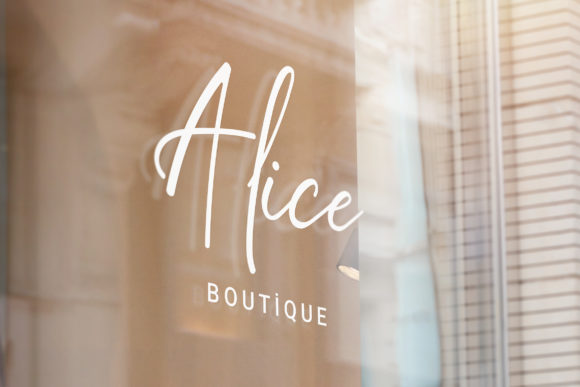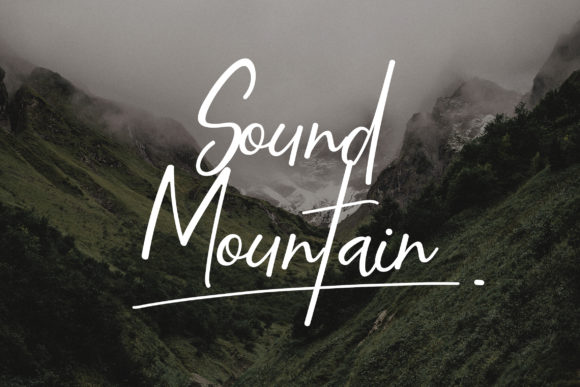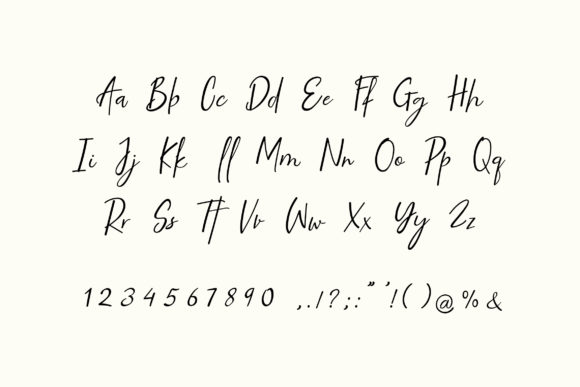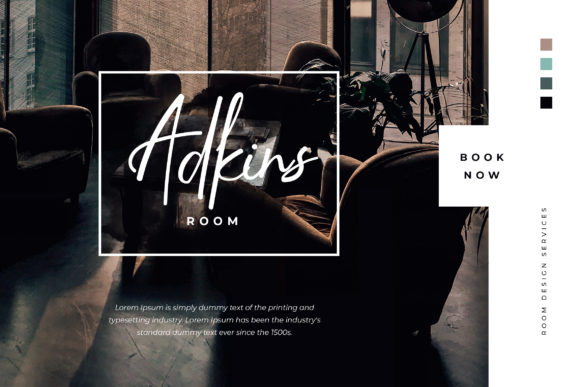
Introduction to Perfect Paradise Font
Perfect Paradise is a dazzling and refined script font.
It has a clean, thin and smooth vibe and it will be a hit for any design that you want to add it to .
Perfect Paradise Font offers exceptional quality and versatility, making it a valuable addition to your design toolkit. Whether you’re creating for personal projects or commercial use, Perfect Paradise Font delivers professional results.